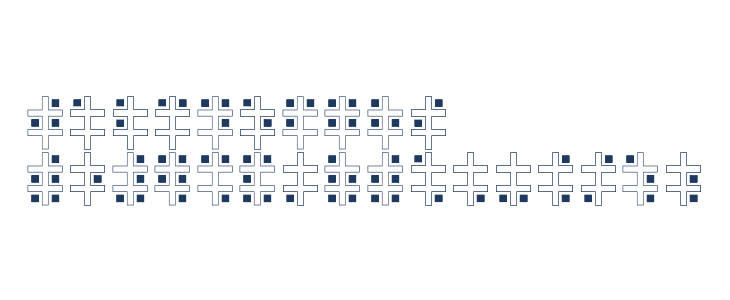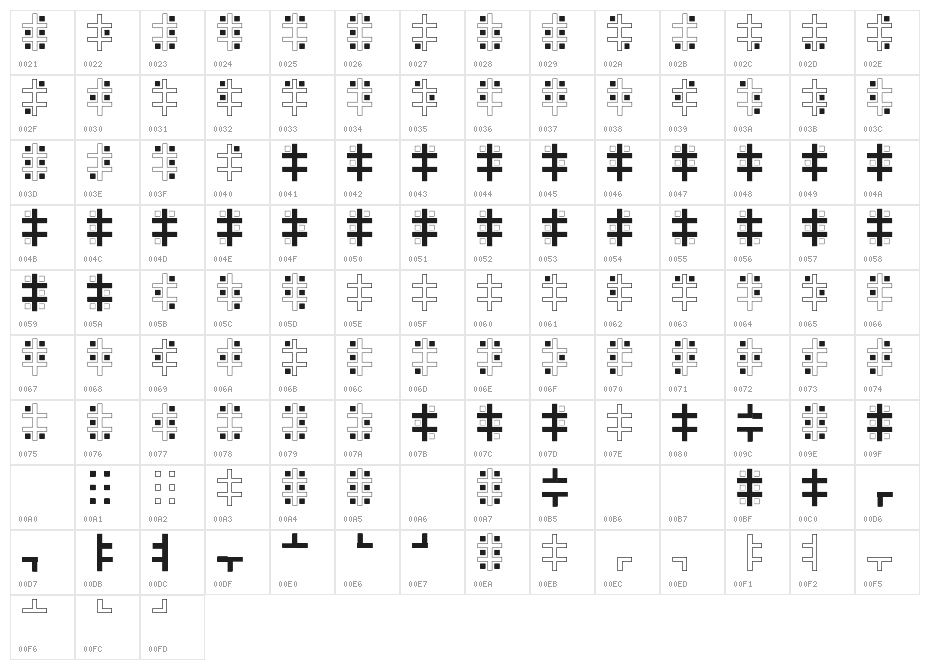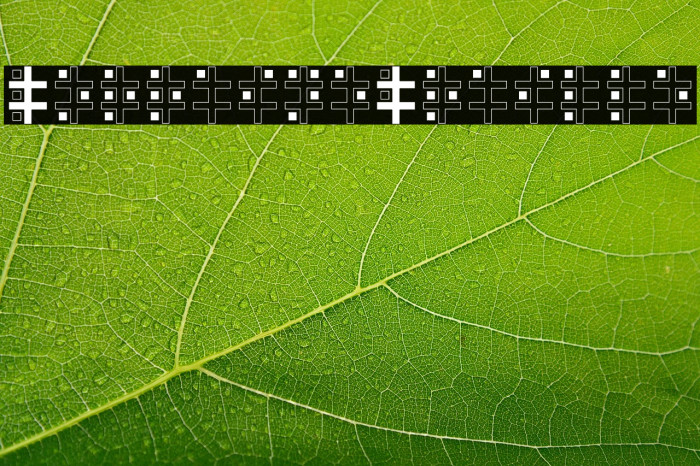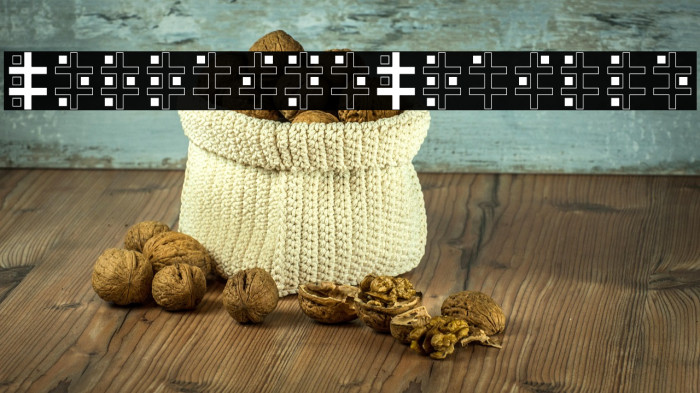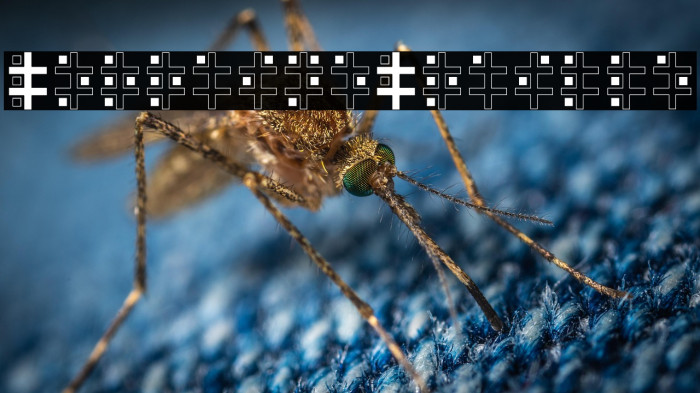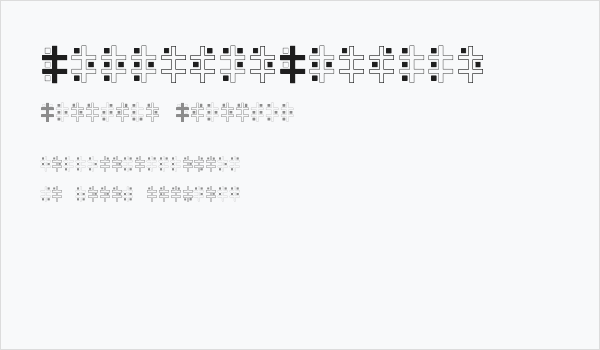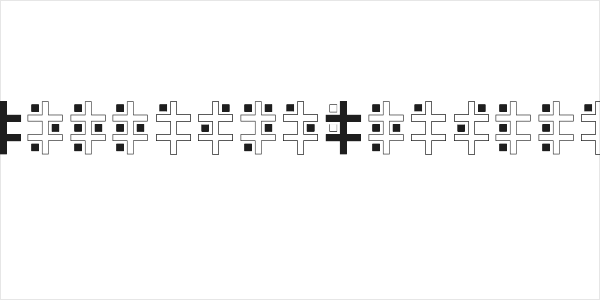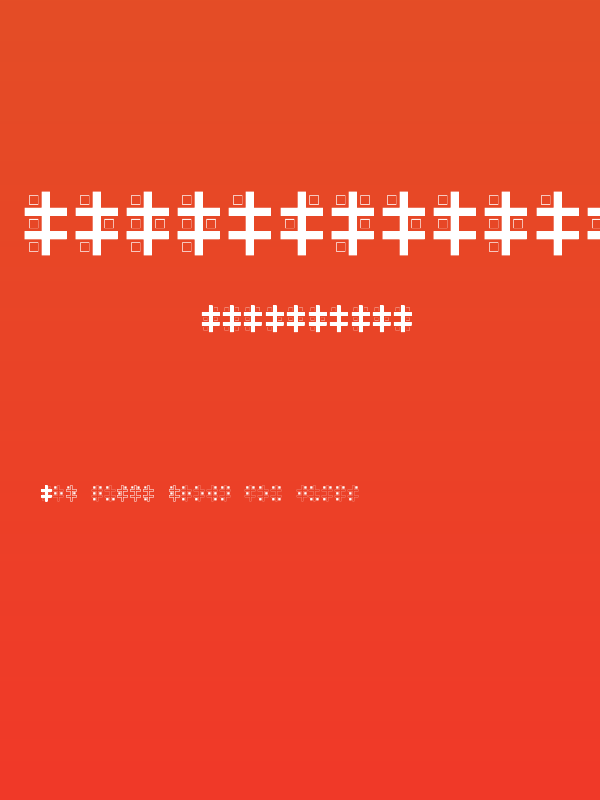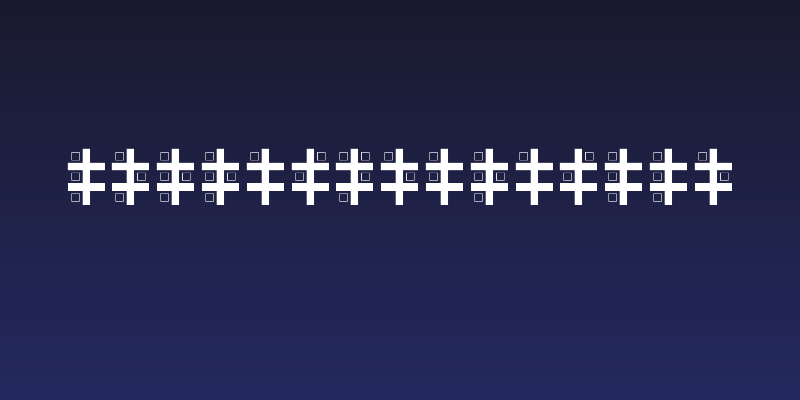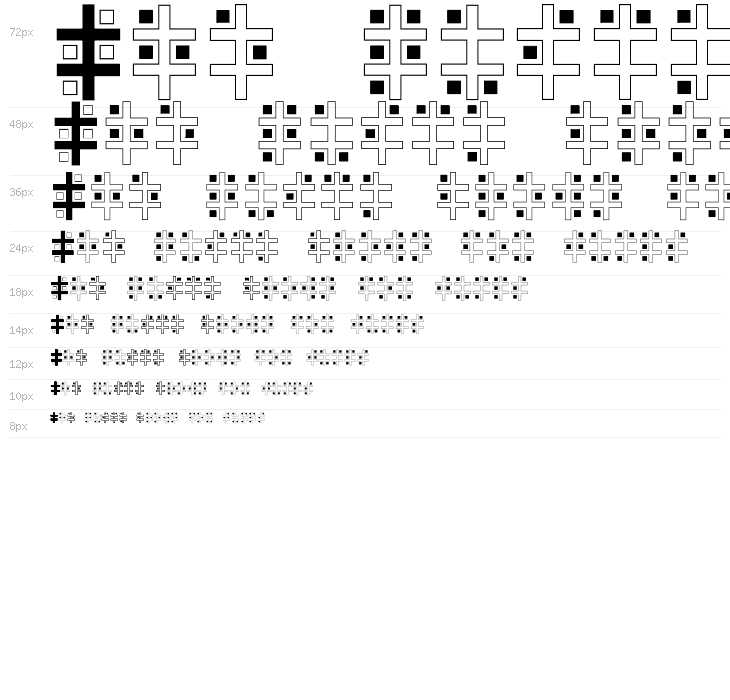
LorraineBraille Font
LorraineBraille Description
This is not a valid font. The image appears to display a pattern or symbol rather than a traditional typeface with distinct characters. Each element in the image consists of a grid-like structure with symmetrical lines and squares, lacking the typical characteristics of letters or numbers.
Use CaseDecorative elements
Proposed ProjectsThis pattern could be used for decorative purposes or as a design element in graphic projects.